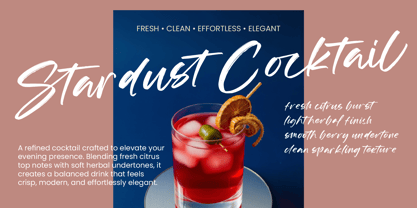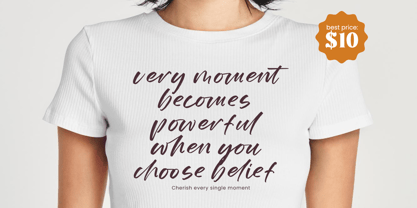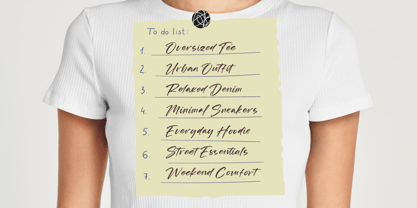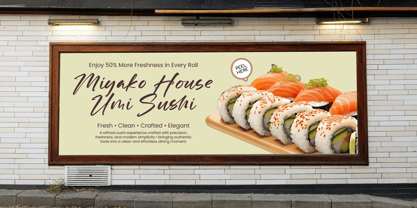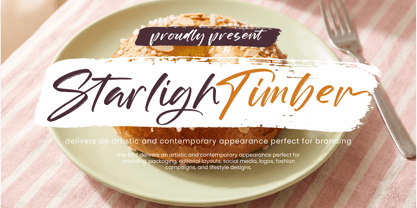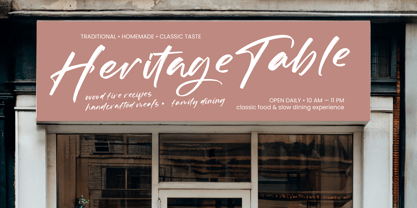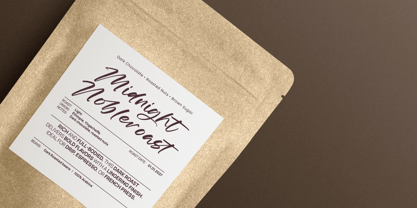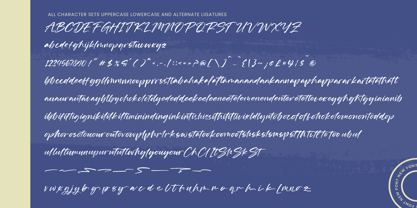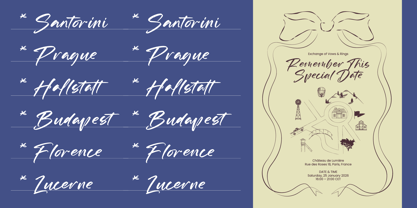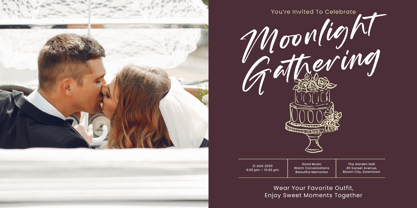
Starligh Timber
La familia tipográfica Starligh Timber fue diseñada por Heru Utama Putra y publicada por Stylishtype Studio. Starligh Timber contiene 2 estilos y opciones de paquete familiar. Más información sobre esta familia
Starligh Timber – Modern Handbrush Script adapts seamlessly across global markets, making it incredibly versatile for international projects. Featuring a robust collection of 42 alternates and 156 ligatures, this modern handbrush typeface offers unparalleled customization. The inclusion of regular and italic styles allows for dynamic typographic hierarchies, ensuring that Starligh Timber – Modern Handbrush Script remains a functional asset for any toolkit.
Transform your portfolio by integrating a font that bridges the gap between traditional craft and modern luxury. Choosing Starligh Timber – Modern Handbrush Script means investing in a high-quality, professional typeface that prioritizes character. Its elegant handwritten character and expressive textures create an immediate emotional connection with the audience. By incorporating Starligh Timber – Modern Handbrush Script into your workflow, you guarantee a polished, high-contrast finish that defines the next generation of visual storytelling and commercial success.